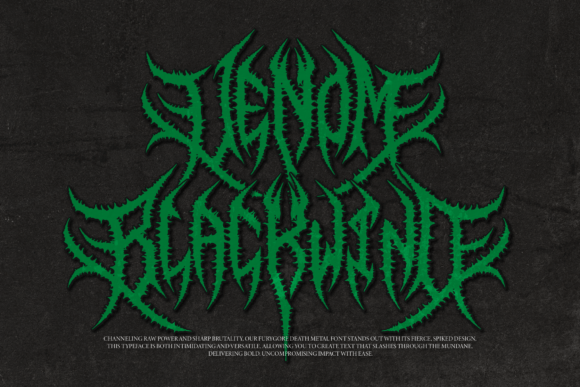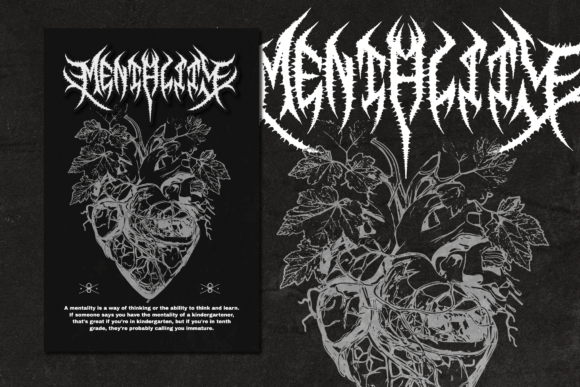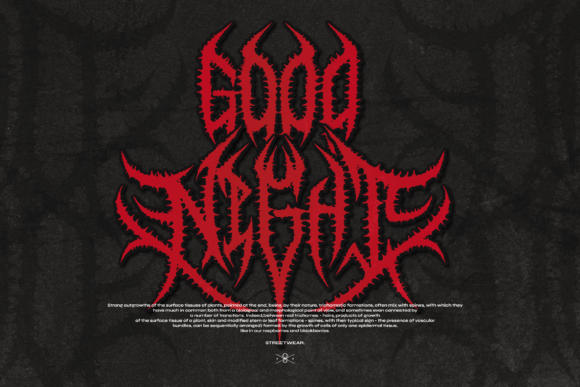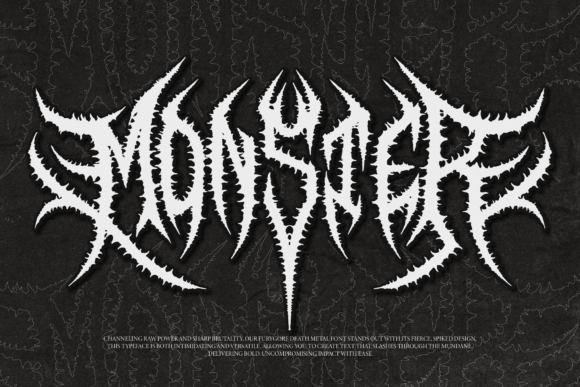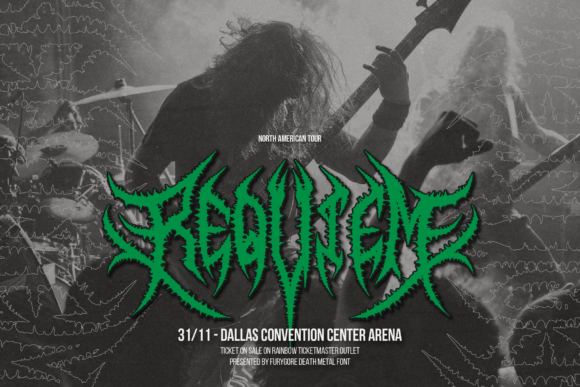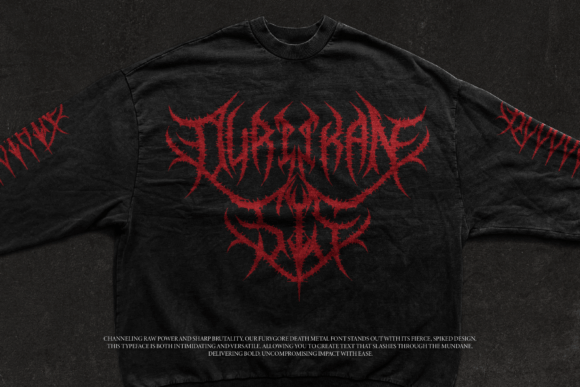
The Furygore Font: Unleashing the Beast for Heavy Music Designs
I’ll never forget the time I was working on a project for a heavy metal band’s album cover. I had the concept, the imagery, and the overall vibe nailed down, but something was missing – the perfect font to capture the raw energy and aggression of their music. That’s when I stumbled upon the Furygore font, a bold and aggressive Death Metal font that would change the game for my design.
First Impressions: A Love Letter to Furygore
The moment I laid eyes on Furygore, I knew it was something special. This font is not for the faint of heart; it’s a bold, jagged, and unapologetic typeface that screams heavy metal. Here are a few things I love about Furygore:
- ✨ Raw Energy: Furygore embodies the intense, unbridled energy of Death Metal music. Its sharp, jagged edges and dark, gritty style make it perfect for designs that need to pack a punch.
- ✅ Legibility: Despite its aggressive style, Furygore remains surprisingly legible, even at smaller sizes. This makes it versatile for use on album covers, posters, and even merchandise.
- 💥 Impact: This font demands attention. Whether you’re designing a concert poster or a band’s social media graphics, Furygore ensures your message hits hard.
The Not-So-Perfect: A Few Quirks
No font is perfect, and Furygore is no exception. Here are a few quirks to keep in mind:
- 🤔 Limited Versatility: While Furygore excels in heavy music contexts, it might not be the best fit for more elegant or minimalist designs. Its aggressive style can overwhelm certain aesthetics.
- ⚠️ Glyph Limitations: Some users have noted that Furygore could benefit from a wider range of glyphs, especially for non-English languages. However, for English-based projects, this shouldn’t be a major issue.
Furygore supports OpenType features, which can enhance your typography. Look for stylistic alternates or glyphs that can add variety to your text. For example, you might find alternate characters or ligatures that give your design an extra edge.
The Story Behind Furygore
Furygore was designed by a typographer who was deeply influenced by the raw power and aggression of Death Metal music. The goal was to create a font that could visually represent the intensity and energy of the genre. Through meticulous design and a passion for heavy music, Furygore was born – a font that’s as bold as it is functional.
| Q: Is Furygore suitable for beginner designers? | A: Absolutely! Furygore is user-friendly and can add a professional touch to your designs, even if you’re just starting out. |
| Q: Does Furygore support non-English characters? | A: While Furygore covers a wide range of English characters, it might have limitations with non-English languages. It’s best to check the specific glyphs available. |
| Q: How does Furygore compare to other heavy metal fonts? | A: Furygore stands out for its sharp, jagged edges and dark aesthetic. It’s particularly noted for its legibility and impact, making it a top choice for heavy music designs. |